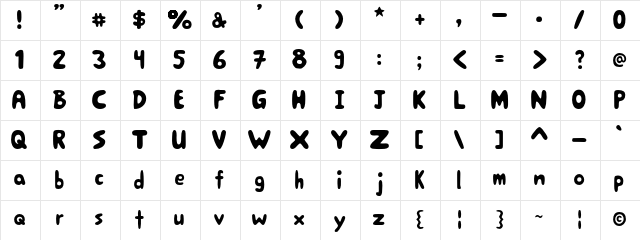
BigBoss Regular Free Font
BigBoss Regular
Design Context for BigBoss
BigBoss is a composed and adaptable typeface that performs quietly and consistently across a wide range of design contexts.